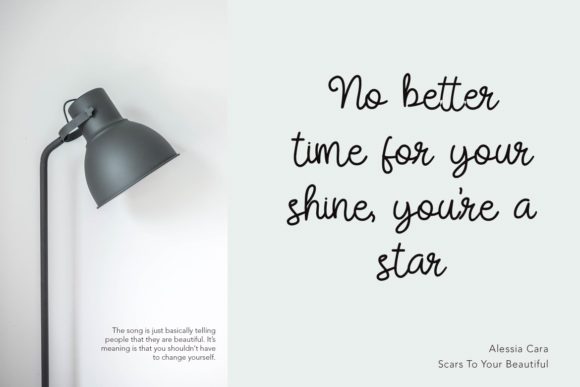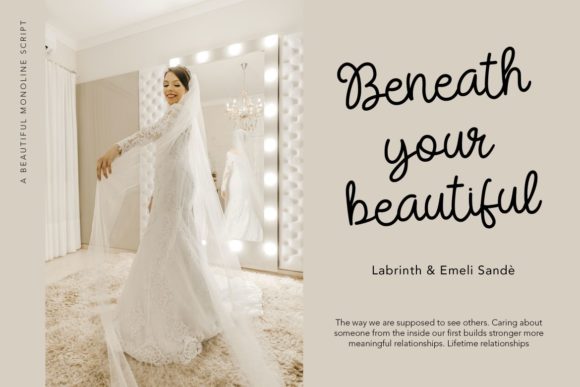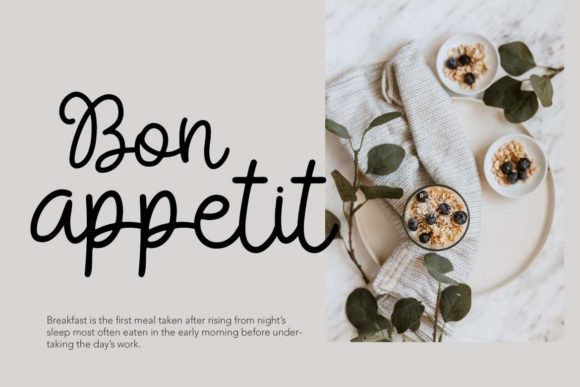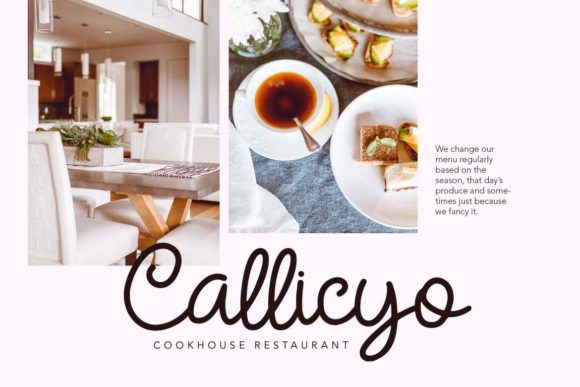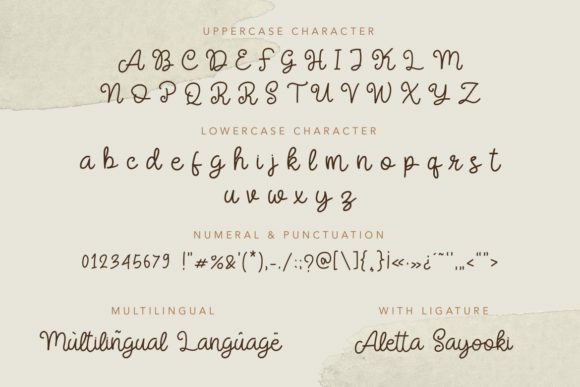
The Elegant Della Walma Font: A Designer’s Delight
I’ll never forget the time I was working on a branding project for a boutique bakery, and I just couldn’t find the right font to capture their whimsical yet sophisticated vibe. The client wanted something that would make their customers feel like they were indulging in a luxurious treat, but I was stuck in a font rut. That’s when I stumbled upon the Della Walma font, and it was love at first sight! 💕
With its elegant and dainty handwritten style, Della Walma features sweet and delicate swashes that add a touch of magic to any design. In this article, I’ll share my honest review of this beautiful font, provide a practical guide on how to use it, and explore similar fonts that might tickle your fancy.
- 💫 Elegant and sophisticated: Della Walma exudes refinement and poise, making it perfect for high-end branding, stationery, and titles.
- 🌸 Delicate swashes: The font’s sweet swashes add a touch of whimsy and femininity, ideal for designs that require a bit of flair.
- 📝 Versatile: Della Walma works beautifully for a range of creative projects, from letterheads to party invitations.
- 👍 Easy to read: Despite its elegant nature, the font remains clear and legible, even at smaller sizes.
Small Quirks and Limitations 🤔
- ⚠️ Limited use in body text: Due to its elegant and cursive nature, Della Walma might not be the best choice for lengthy body text.
- 🤔 Some swashes might not work well in all contexts: A few swashes might appear awkward or unbalanced when used in certain design scenarios.
The Story Behind Della Walma
Della Walma was designed by a talented type designer who drew inspiration from classic calligraphy and elegant handwriting. The font’s creator aimed to craft a beautiful, sophisticated script that would add a touch of luxury to any design. With its delicate swashes and elegant lines, Della Walma has become a favorite among designers and crafty hobbyists alike.
| Author | fontherapy |
| What makes Della Walma unique? | Della Walma’s elegant and dainty handwritten style, combined with its delicate swashes, sets it apart from other fonts. |
| Is Della Walma suitable for body text? | While Della Walma is beautiful, it’s not ideal for lengthy body text due to its elegant and cursive nature. |